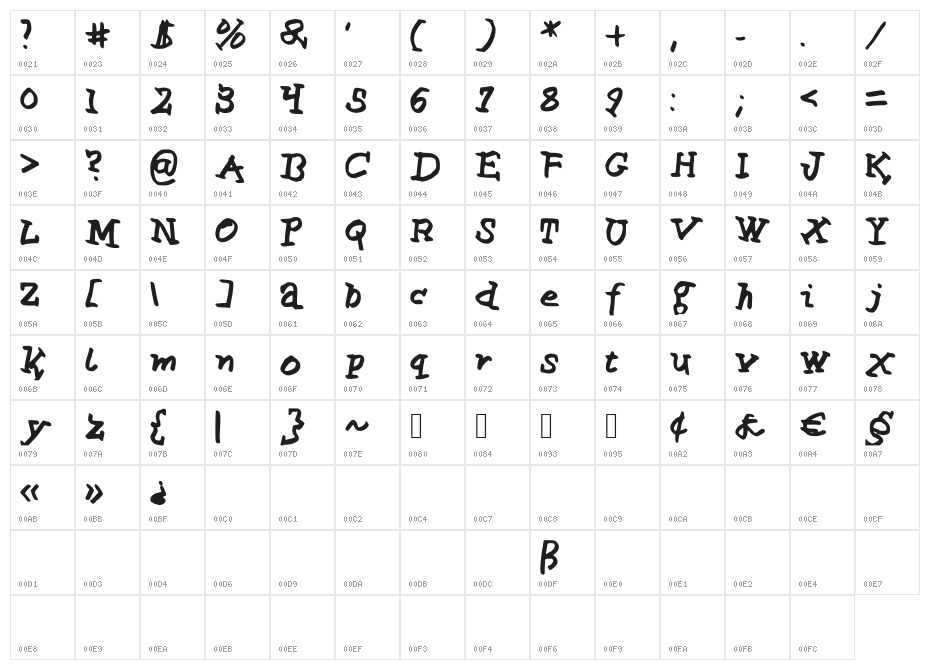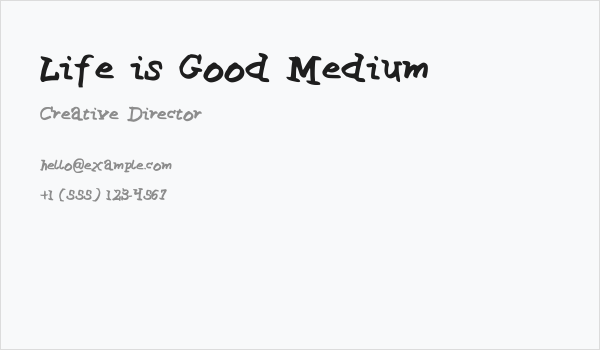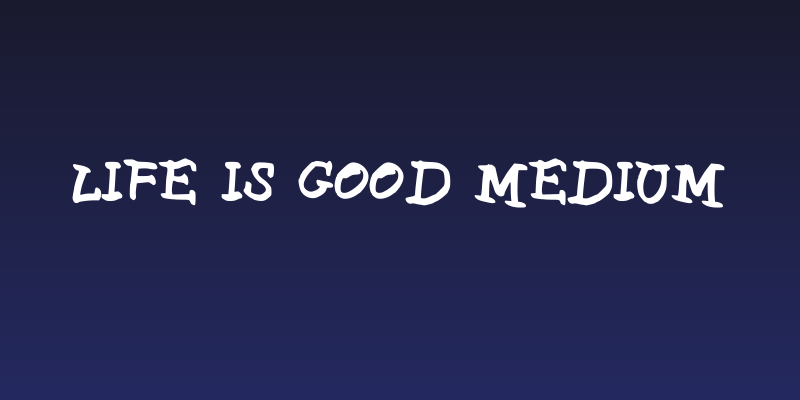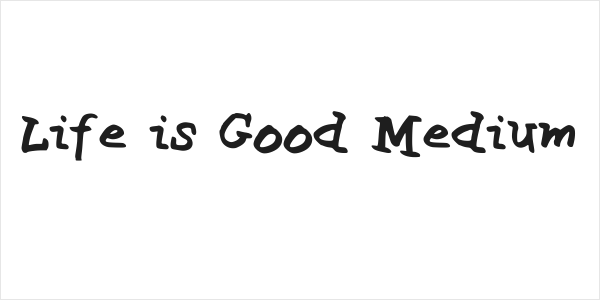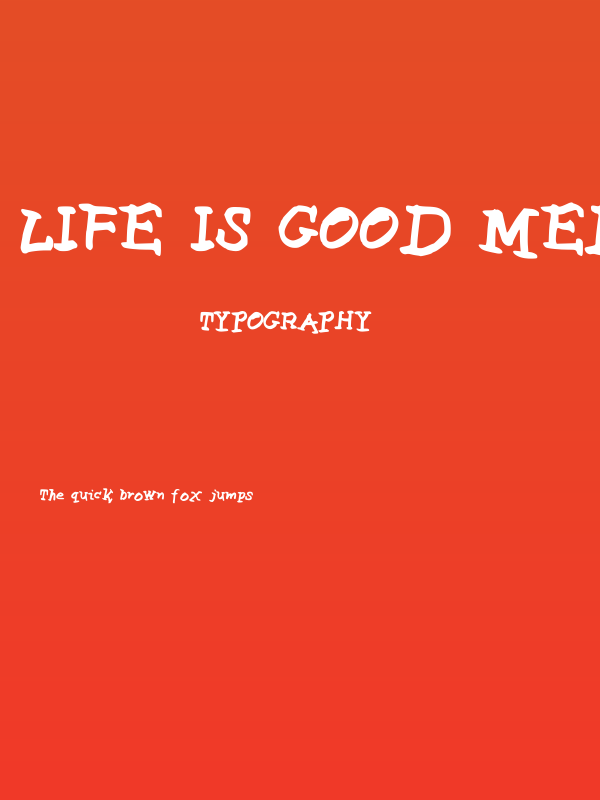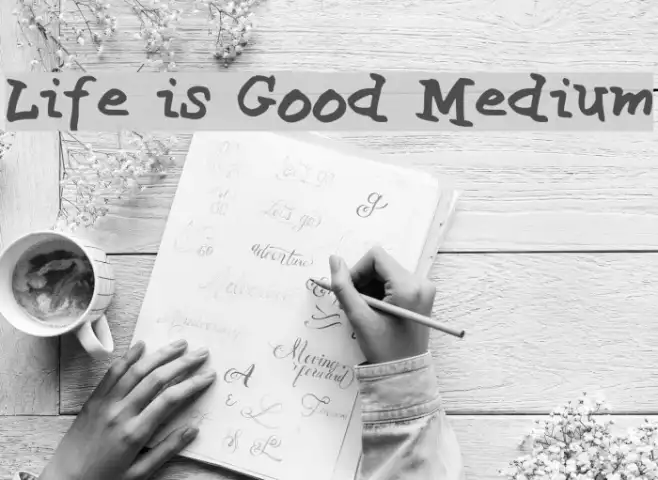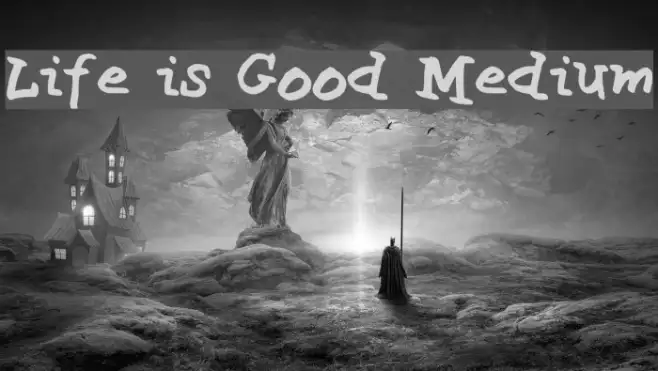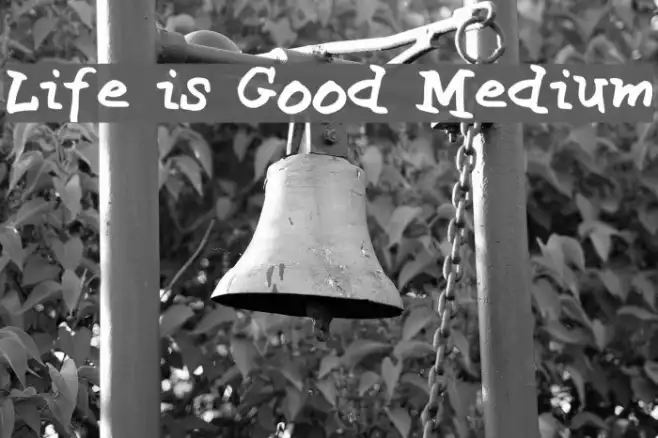
Life is Good Medium Font
Life is Good Medium Description
This font features a playful and whimsical style, characterized by its bold and uneven strokes that give it a hand-drawn appearance. The letters are slightly irregular, adding a sense of movement and energy. The uppercase and lowercase letters maintain a consistent style, with the uppercase being more pronounced. The numbers and special characters follow the same playful design, making the font suitable for creative and informal projects. Its unique style makes it stand out, perfect for capturing attention.
| Proposed Projects | Ideal for children's books, greeting cards, playful branding, and creative posters. |